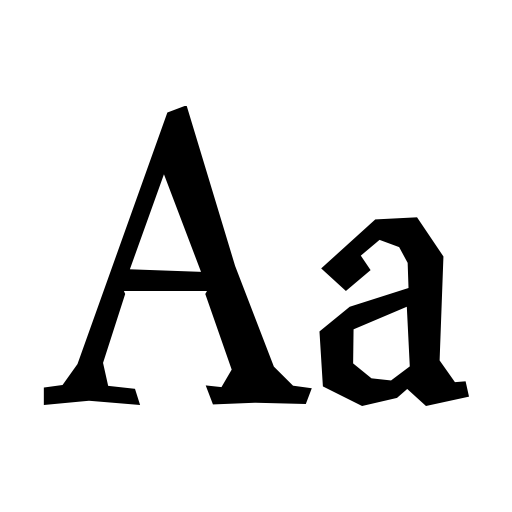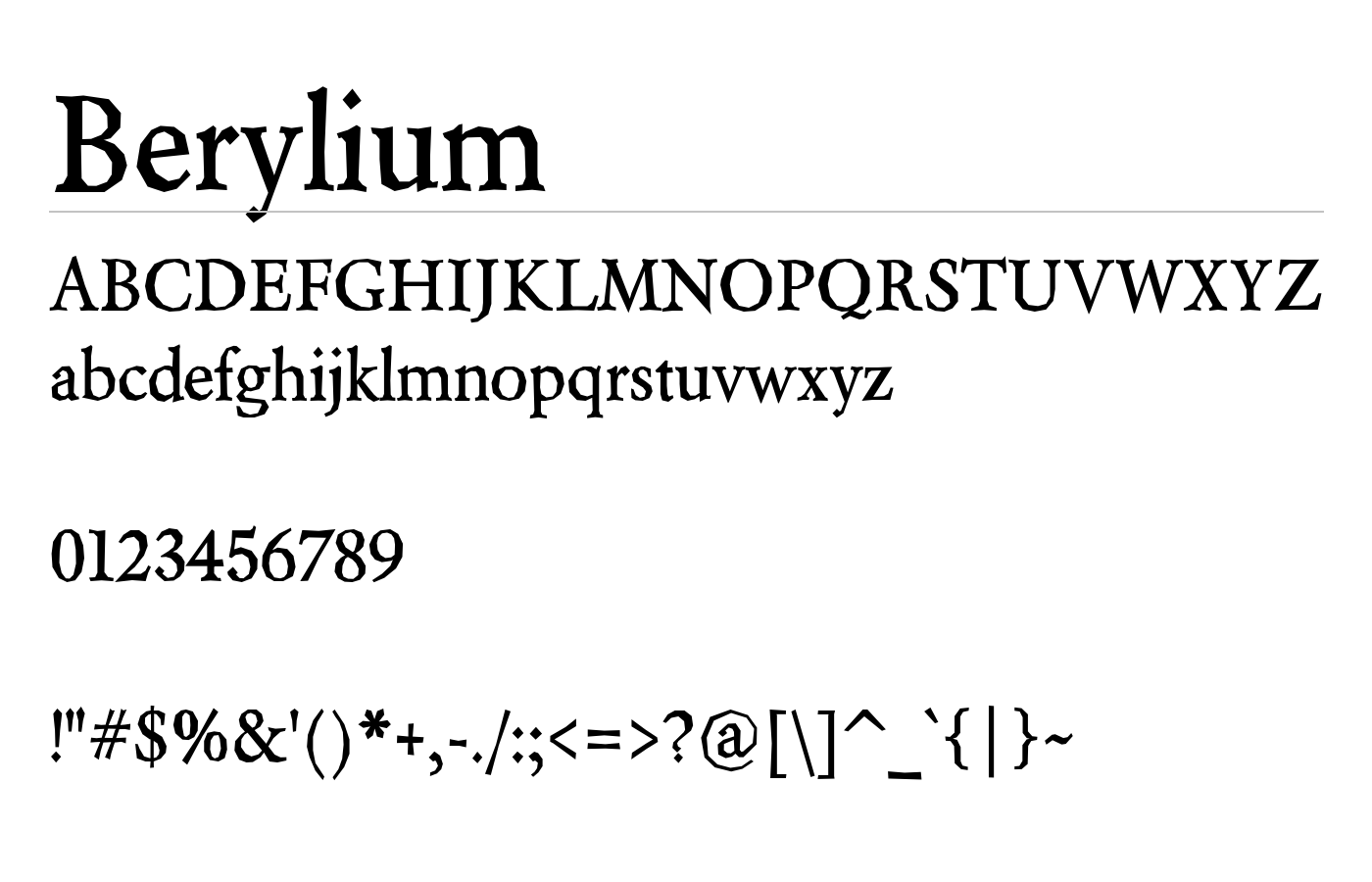
Berylium is a serif font with a classic, slightly rough texture that gives it a handcrafted, vintage feel. Its moderate stroke contrast and distinctive, uneven edges add character while maintaining readability, making it ideal for projects that want to evoke tradition and authenticity. This font works well for editorial designs, logos, and branding that seek a timeless, artisanal touch.
Berylium Font
About Berylium Font
| Font family | Berylium Font |
| Designer | Raymond Larabie |